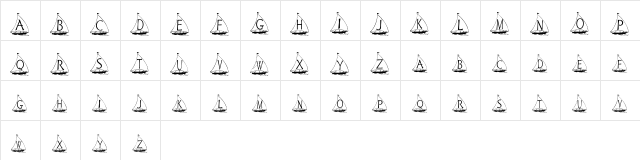
Petits Bateaux Regular
Design Context for Petits Bateaux Typeface
Petits Bateaux is a composed and adaptable typeface that performs quietly and consistently across a wide range of design contexts.